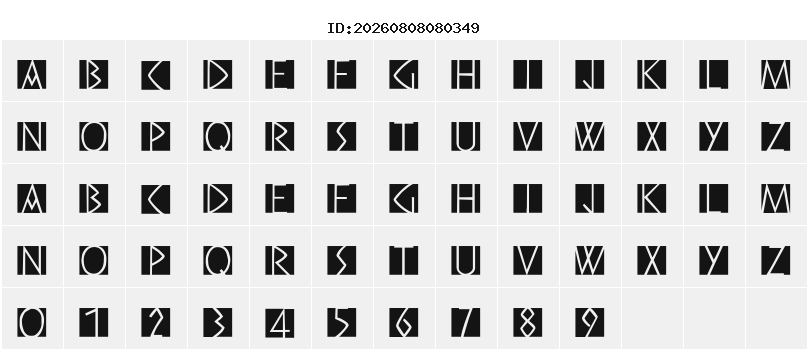
PreRomanCaps Preview
About PreRomanCaps.ttf
PreRomanCaps.ttf is a modern, elegant sans-serif font designed for ultimate readability and visual harmony. Perfect for branding, headlines, web design, and print materials.